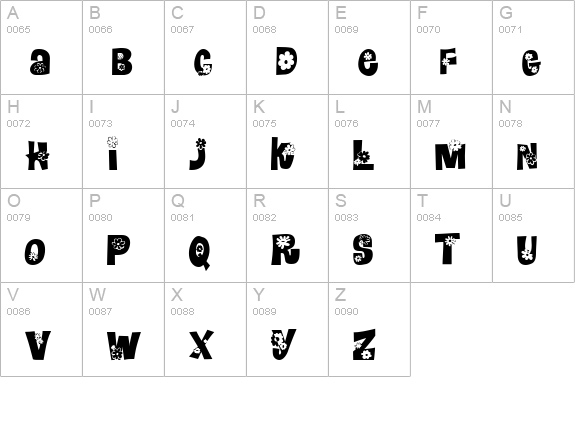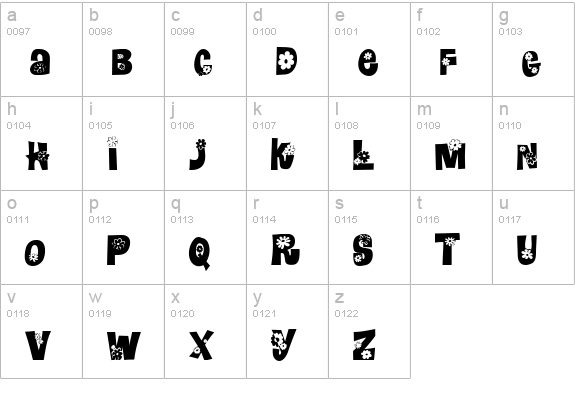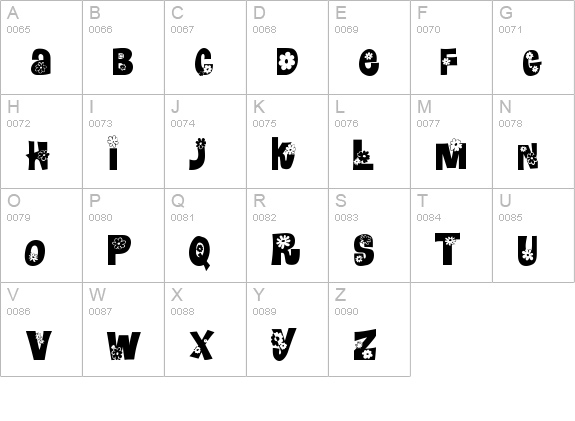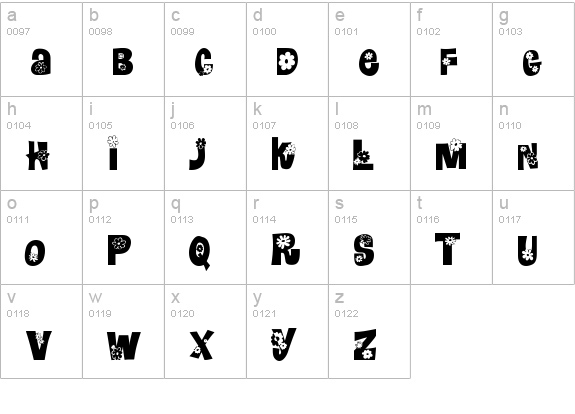
Blomster Font Details
Blomster font is a whimsical and elegant typeface that exudes charm and sophistication. Its delicate floral-inspired design adds a touch of nature to any project, making it perfect for invitations, branding, and more. With its graceful curves and intricate details, Blomster font brings a sense of beauty and grace to your designs. The best part? Blomster font is completely free! You can easily download this stunning typeface at FontsMarket.com and start using it in your projects right away. Whether you're creating wedding invites, greeting cards, or social media graphics, Blomster font will elevate your designs with its unique and enchanting style. Don't miss out on this fabulous font - download it now and let your creativity bloom with Blomster!